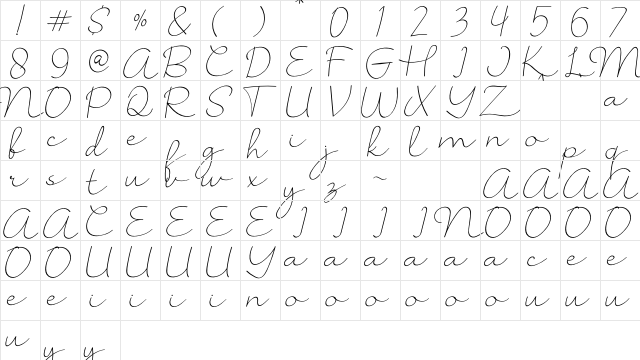
Kalimera Condensed
Design Context for Kalimera Typeface
Kalimera is a composed and adaptable typeface that performs quietly and consistently across a wide range of design contexts. The condensed width makes it efficient for tight spaces without sacrificing legibility.